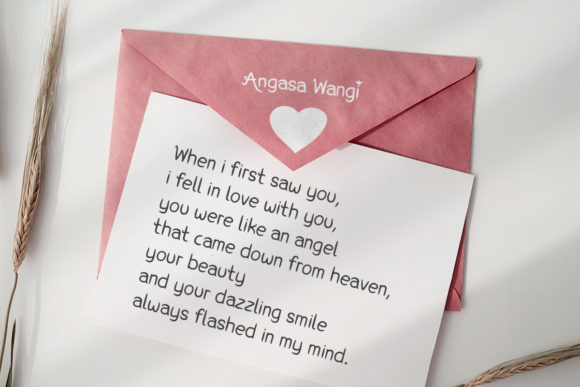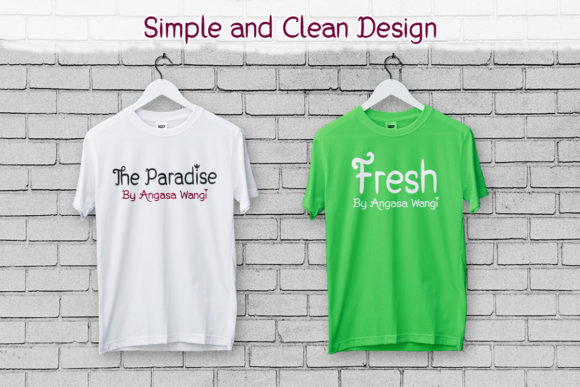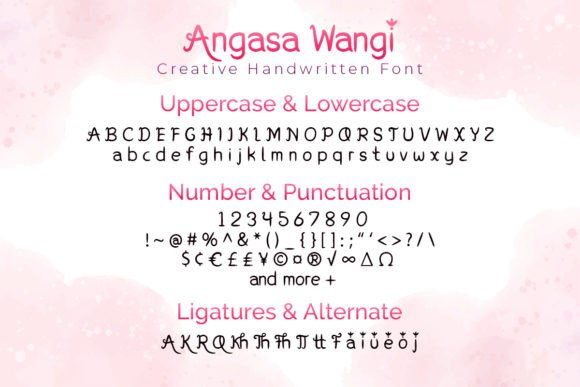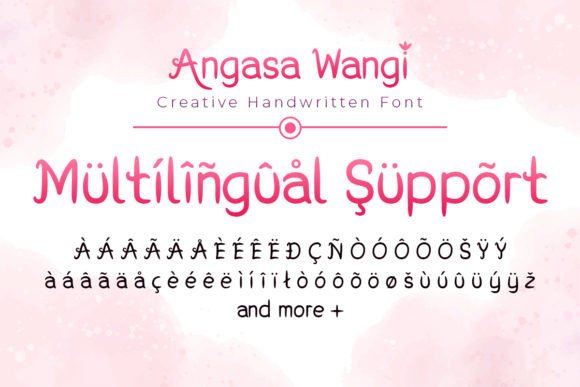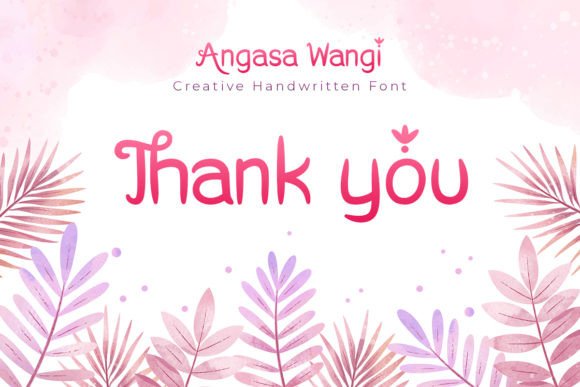
The Sweet Spot: Discovering Angasa Wangi Font
I’ll never forget the time I was working on a branding project for a children’s toy company. I had nailed down the color palette, logo, and overall aesthetic, but something was missing. The font I had chosen just wasn’t doing it for me – it felt too formal, too boring. I scoured the internet for the perfect handwritten font, and that’s when I stumbled upon Angasa Wangi. It was like a breath of fresh air! The sweet, friendly curves instantly elevated my design and made it feel more approachable. In this article, I’m excited to share my love for Angasa Wangi Font and explore its many uses.
- ✨ Sweet and friendly vibe that’s perfect for projects that need a personal touch
- ✅ Highly versatile and can be used for a wide range of projects, from kids’ branding to adult-oriented designs
- 🌈 Beautifully crafted with attention to detail, making it a joy to work with
While Angasa Wangi is an amazing font, it’s not perfect. Here are a few things to keep in mind:
- ⚠️ It can be a bit overused, so make sure to balance it with other design elements
- 🤔 Some characters may not work well at very small sizes, so test it out before finalizing your design
A Practical Guide: Using Angasa Wangi in Your Designs
- Experiment with OpenType features, such as ligatures and stylistic alternates, to add some extra flair to your design
- Explore the font’s glyphs and OpenType features to add some extra personality to your design
The Story Behind Angasa Wangi
Angasa Wangi was designed with love and care by a talented type designer who wanted to create a font that would bring a smile to people’s faces. The designer’s inspiration came from traditional Indonesian art and culture, which is reflected in the font’s unique and playful curves.
Q: What is Angasa Wangi font best used for?
A: Angasa Wangi is a versatile font that can be used for a wide range of projects, from kids’ branding to adult-oriented designs. It’s perfect for projects that need a personal touch and a friendly vibe.